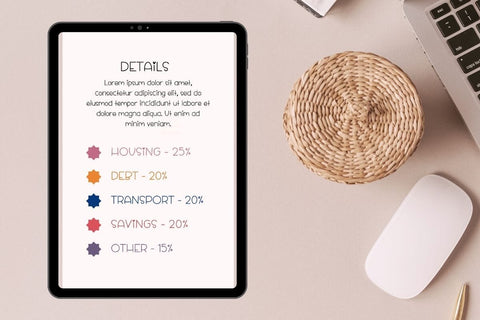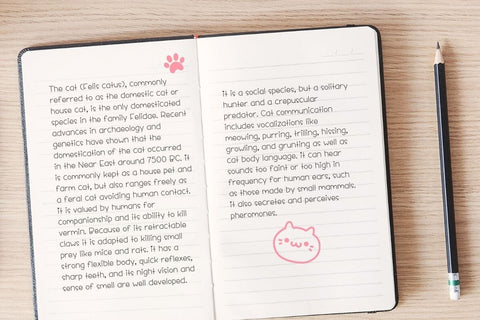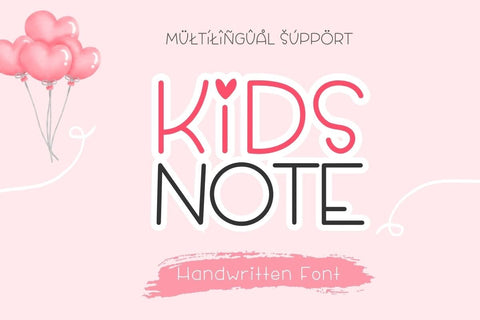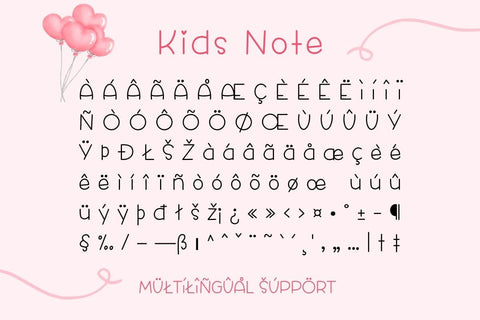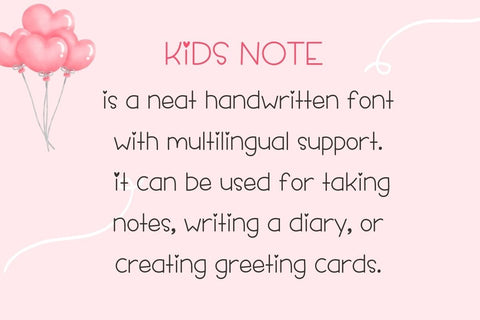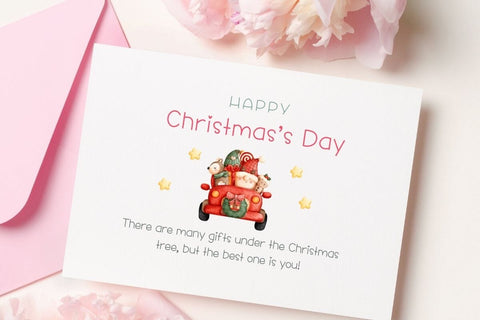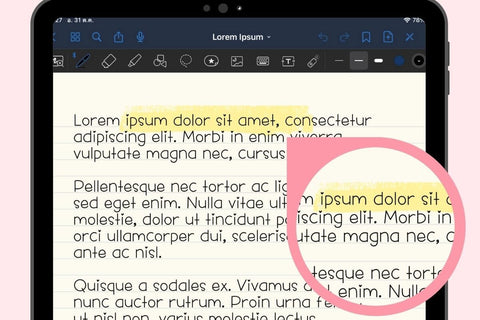
Kids Note - Handwritten Font
Kids Note is a neat and realistic handwritten font perfect for planners, Goodnotes, and Note-taking App whether you're planning your week, journaling, or creating digital art.